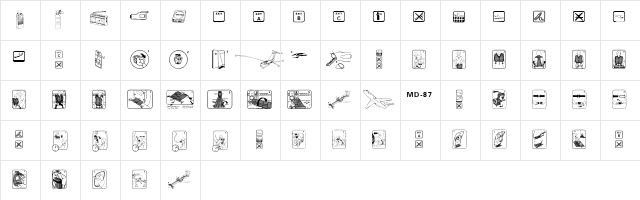
FastenYourSeatBelt Textured Regular Free Font
FastenYourSeatBelt Textured Regular
Design Context for FastenYourSeatBelt Textured
FastenYourSeatBelt Textured embraces imperfection - its rough, textured character adds raw authenticity to designs that want to feel lived-in and unconventional.
Pro Tip: Use FastenYourSeatBelt Textured at larger sizes where the texture and irregularity of each letterform can be clearly seen - it loses its character at small sizes.